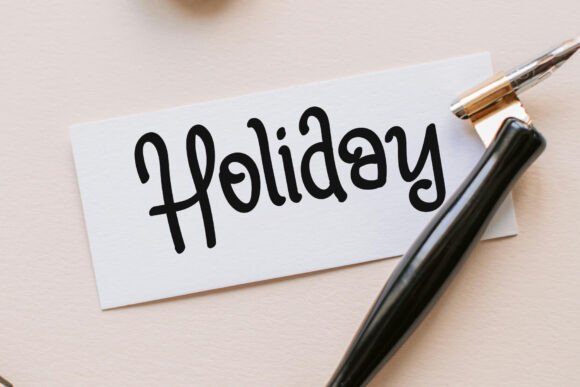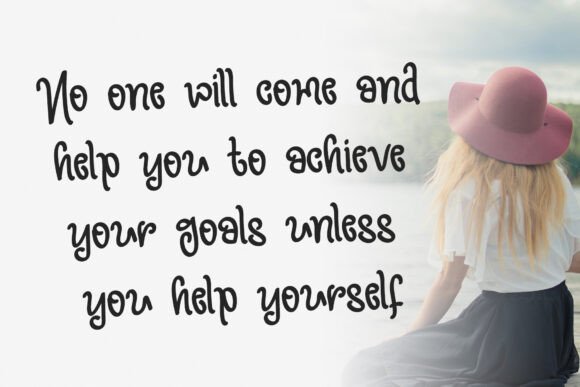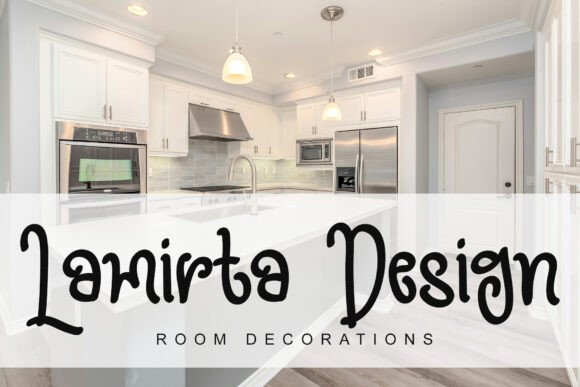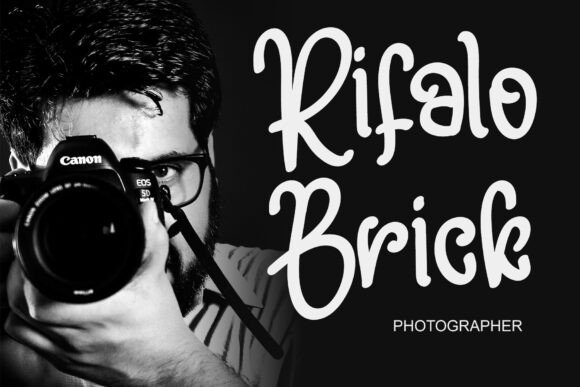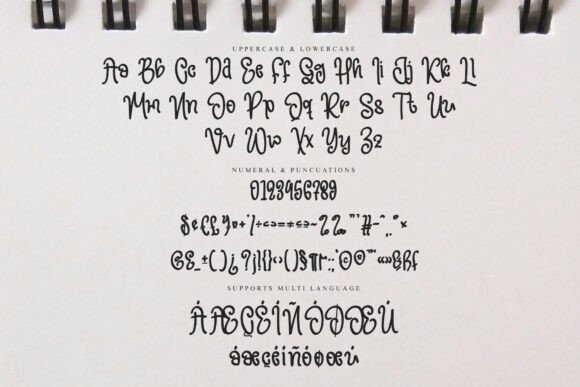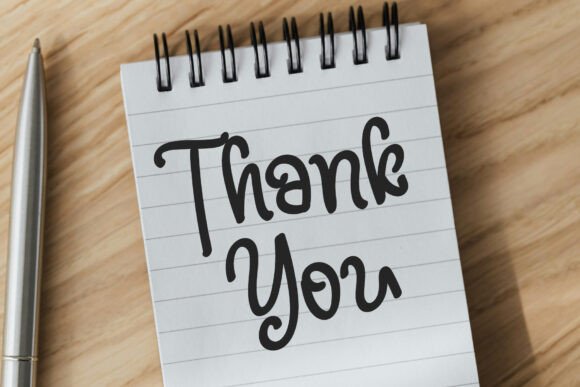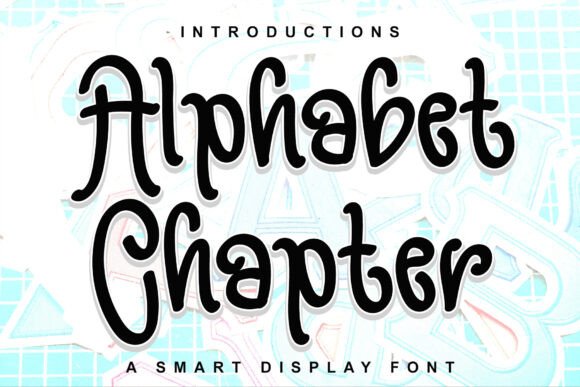
Introducing Alphabet Chapter Font: A Handwritten Masterpiece
Are you tired of using the same old fonts in your designs? Look no further! Alphabet Chapter Font is a stunning handwritten font that is sure to capture your heart. Its unique and well-rounded letters make it a masterpiece that can elevate your designs to the next level. In this article, we’ll dive into the features and benefits of Alphabet Chapter Font, and explore how you can use it to create spectacular designs.
What is Alphabet Chapter Font?
Alphabet Chapter Font is a beautiful handwritten font that is designed to add a personal touch to your designs. Its distinct letters are carefully crafted to provide a unique and stylish look that sets it apart from other fonts. Whether you’re a designer, crafter, or DIY enthusiast, Alphabet Chapter Font is the perfect choice for anyone looking to add some personality to their work.
Key Features of Alphabet Chapter Font
- Handwritten style: Alphabet Chapter Font has a beautiful handwritten style that gives it a personal and unique touch.
- Well-rounded letters: The font features well-rounded letters that are carefully crafted to provide a smooth and elegant look.
- Versatile style: Alphabet Chapter Font is incredibly versatile, making it suitable for a wide range of design projects, from invitations and greeting cards to branding and advertising.
- Easily readable: Despite its unique style, Alphabet Chapter Font is easily readable, making it perfect for body text and headlines.
Benefits of Using Alphabet Chapter Font
So, why should you choose Alphabet Chapter Font for your designs? Here are just a few benefits of using this amazing font:
- Adds personality to your designs: Alphabet Chapter Font adds a personal touch to your designs, making them stand out from the crowd.
- Increases creativity: The unique style of Alphabet Chapter Font can inspire creativity and help you think outside the box.
- Saves time: With Alphabet Chapter Font, you can create stunning designs in no time, thanks to its easily readable and versatile style.
- Perfect for various design projects: Whether you’re working on a branding project, creating social media graphics, or designing a website, Alphabet Chapter Font is the perfect choice.
How to Use Alphabet Chapter Font
Using Alphabet Chapter Font is easy! Here are a few tips to get you started:
- Pair it with other fonts: Experiment with pairing Alphabet Chapter Font with other fonts to create a unique and stylish look.
- Use it for headlines and body text: Alphabet Chapter Font is suitable for both headlines and body text, making it a versatile addition to your design toolkit.
- Add it to your branding materials: Use Alphabet Chapter Font to create consistent branding across all your materials, from business cards to website headers.
- Experiment with colors and textures: Don’t be afraid to experiment with different colors and textures to add depth and interest to your designs.
Alphabet Chapter Font is a beautiful handwritten font that can add a personal touch to your designs. Its unique and well-rounded letters make it a masterpiece that can elevate your designs to the next level. With its versatile style, easily readable letters, and range of uses, Alphabet Chapter Font is the perfect choice for designers, crafters, and DIY enthusiasts. So why wait? Fall in love with Alphabet Chapter Font and start creating spectacular designs today!